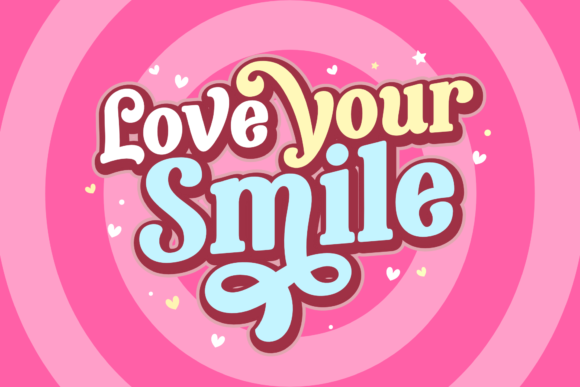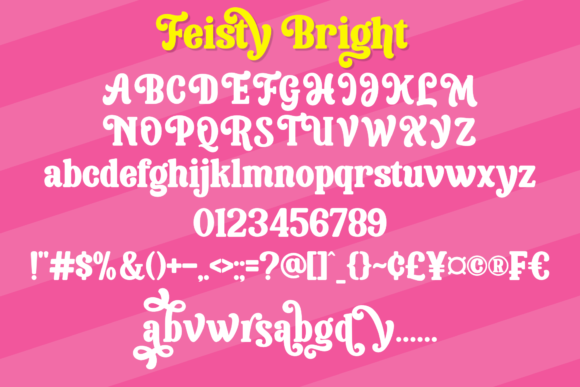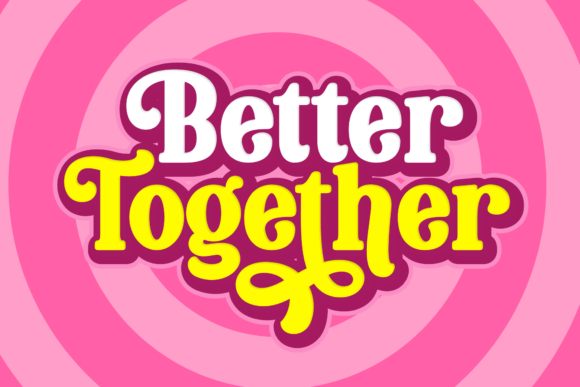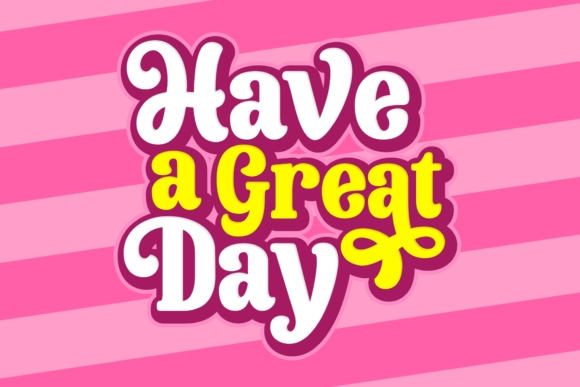
Introduction to Feisty Bright Font
Feisty Bright is a playful and retro styled display font.
It combines nicely the balanced curves with an aesthetic touch This font is PUA encoded which means you can access all of the glyphs and swashes with ease.
Key Features of Feisty Bright Font
Why Choose Feisty Bright Font?